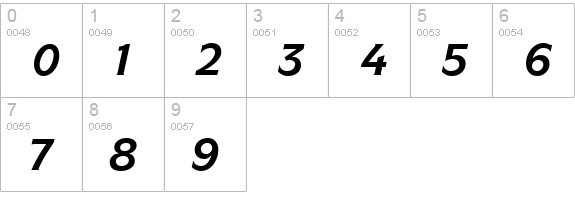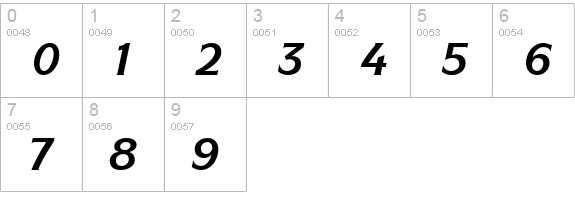
Symbol Bold Italic is a strong, high-contrast, italic variant in the Symbol typeface family \xE2\x80\x94 well suited to headlines, attention-grabbing titles, and strong calls-to-action.
Symbol Bold Italic is a stunning and elegant font that exudes sophistication and style. Its bold yet graceful curves make it perfect for adding a touch of luxury to any design project. This font is ideal for creating eye-catching headlines, logos, and branding materials. The combination of boldness and italics gives this font a unique and dynamic look that will make your designs stand out. The best part is that Symbol Bold Italic is available for free download at FontsMarket.com. By downloading this font, you can add a touch of elegance and class to your projects without breaking the bank. Don't miss out on the opportunity to enhance your designs with this beautiful and versatile typeface. Download Symbol Bold Italic for free today and elevate your design game!